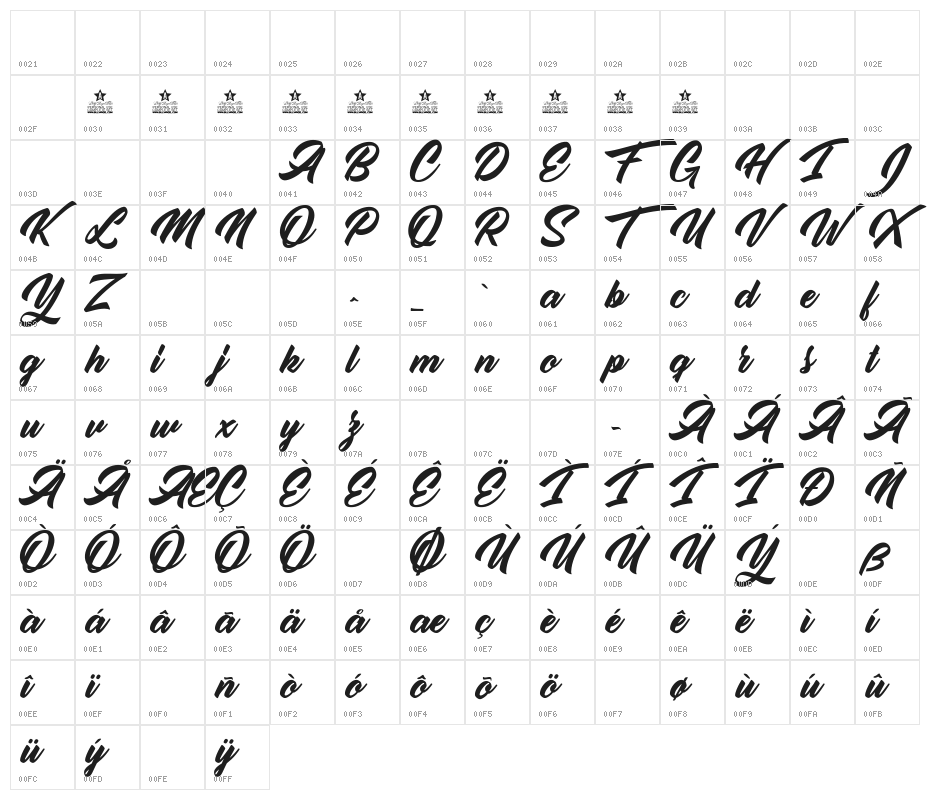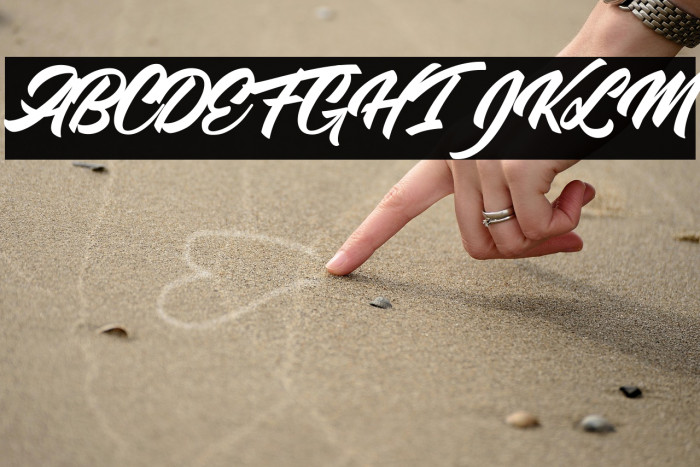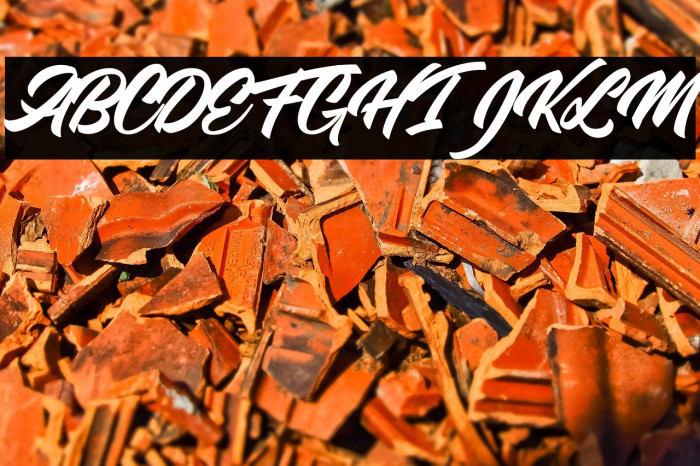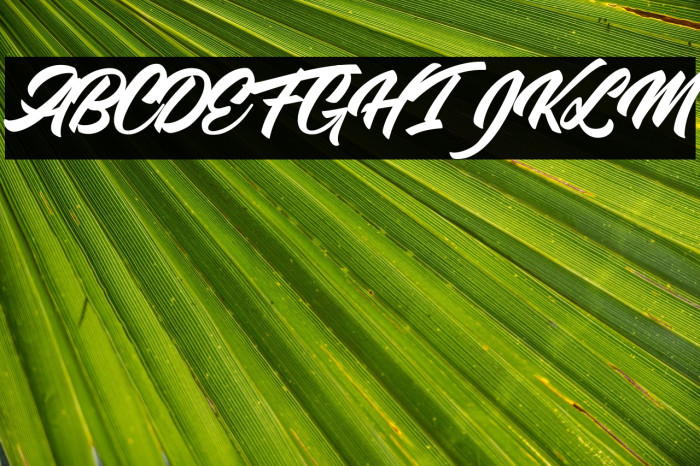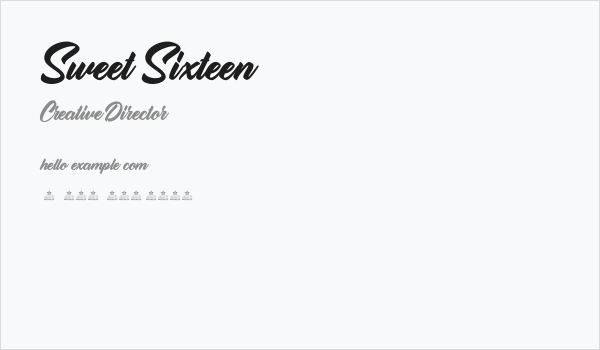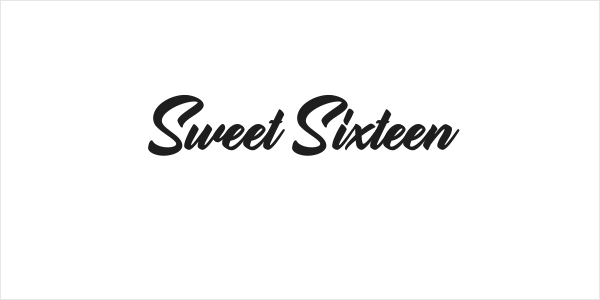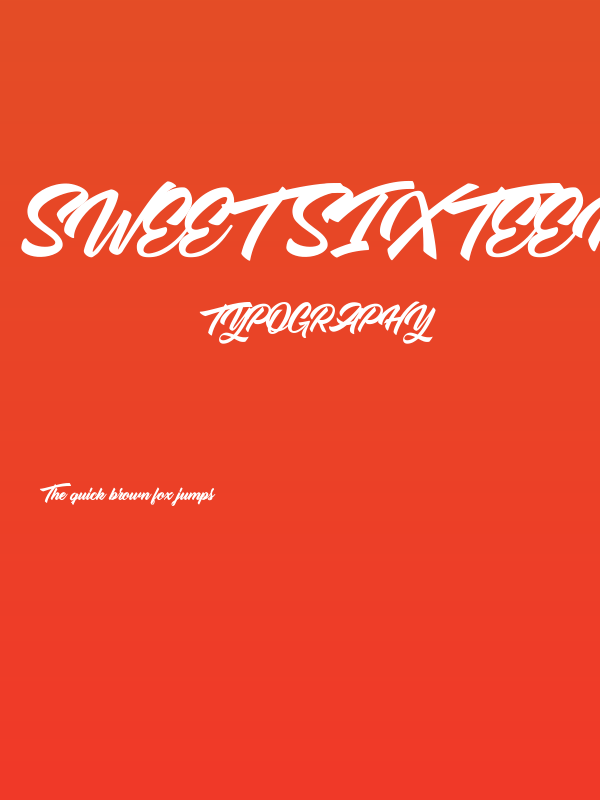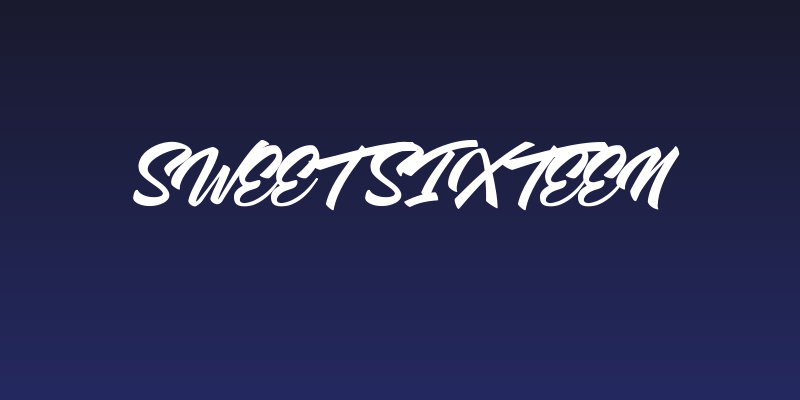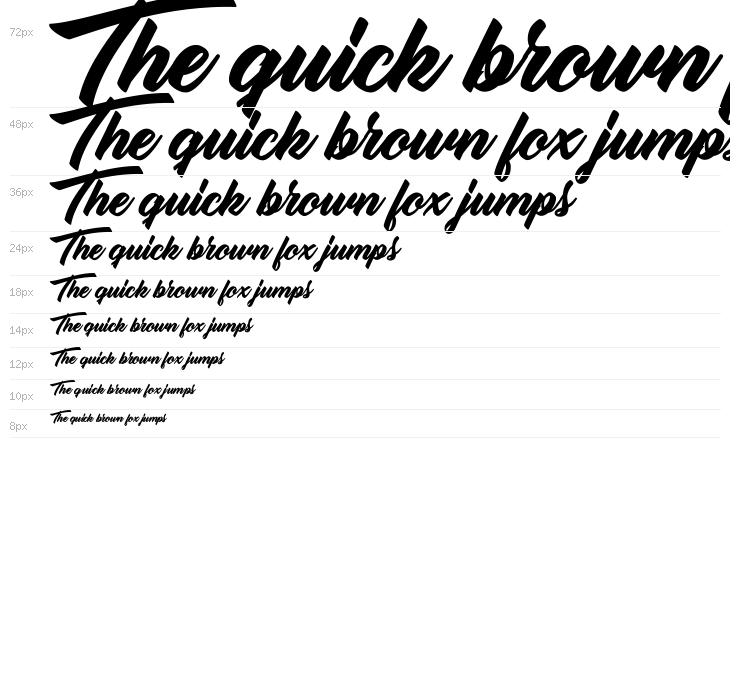
Sweet Sixteen Font
Sweet Sixteen Description
This font features a bold, flowing script style that exudes a sense of elegance and sophistication. The letters are connected, creating a seamless and fluid appearance, reminiscent of classic calligraphy. The strokes are thick and consistent, providing a strong visual impact. The uppercase letters are slightly larger and more ornate, while the lowercase letters maintain a smooth and cohesive look. This font is well-suited for creating a dynamic and stylish aesthetic, perfect for projects that require a touch of flair and personality.
| Use Case | Logos, Headlines |
| Proposed Projects | Ideal for wedding invitations, branding, logos, and decorative headlines. |